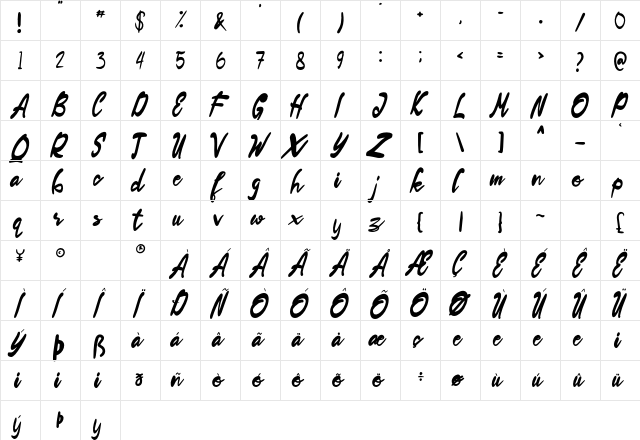
The SimpleHappiness Script
Design Context for The SimpleHappiness Typeface
The SimpleHappiness brings a calligraphic fluidity to the page — its connecting strokes and expressive curves give it an unmistakably human quality.
Font Pairing: Combine The SimpleHappiness with a simple geometric sans for maximum contrast — the tension between flowing curves and clean structure is a classic typographic pairing.
Pro Tip: Use The SimpleHappiness for short runs of text — names, titles, or taglines. Extended body copy in script faces tires the eye quickly.